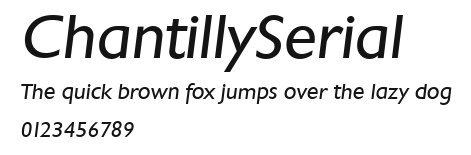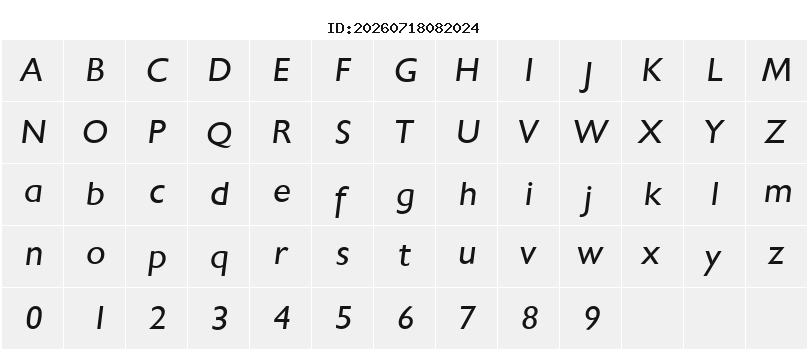
• Font Name: ChantillySerial
• Font ID: SoftMaker Software GmbH ChantillySerial-Italic
• Full Font Name: ChantillySerial-Italic
• Designer: SoftMaker Software GmbH
• Manufacturer: SoftMaker Software GmbH
About ChantillySerial.ttf
ChantillySerial.ttf is a modern, elegant sans-serif font designed for ultimate readability and visual harmony. Perfect for branding, headlines, web design, and print materials.